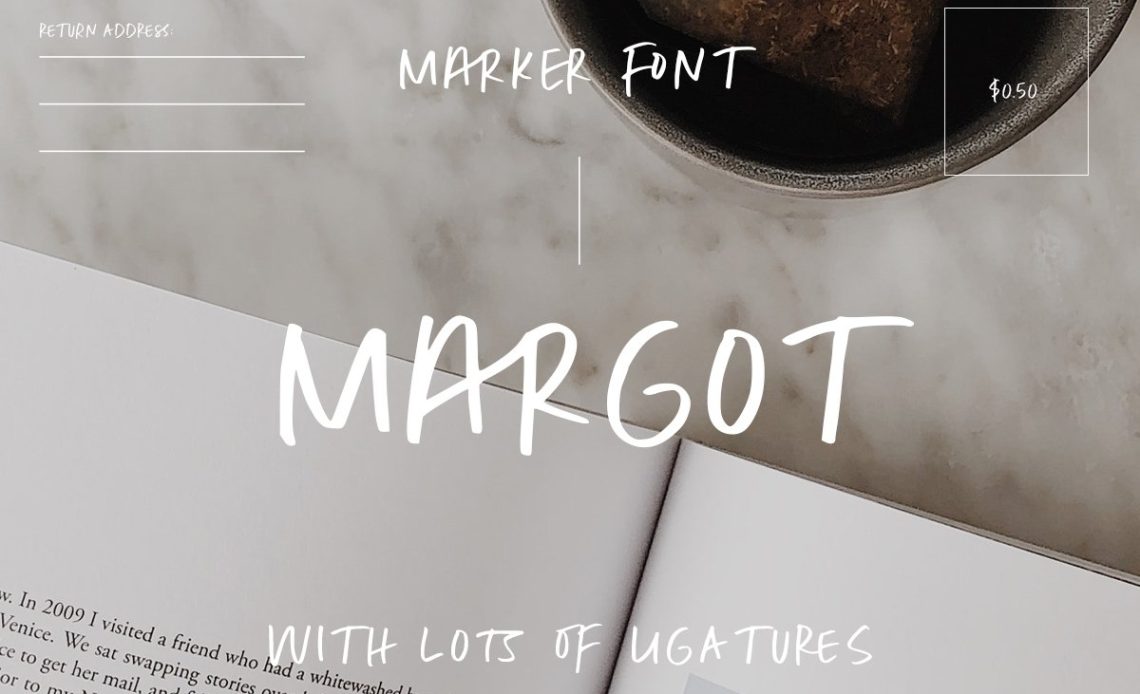
Looking for the perfect script font to add a touch of personal flair to your creative projects? Look no further than Margot Marker Font, the best font for script available on the market today.
Created by renowned calligrapher Margot Groner, Margot Marker Font is a beautiful and versatile script font that's perfect for a wide range of creative applications. Featuring all caps with three variations of each letter, plus lots of ligatures for a natural, imperfect look, this font is perfect for everything from hand-lettered social media quotes to bold and eye-catching ad campaigns.
But what really sets Margot Marker Font apart is its incredible versatility. Available in English, Spanish, French, and German, this font is perfect for designers and creators working in a wide range of languages and regions. And with support for numbers and punctuation, you can use Margot Marker Font to create beautiful, personalized designs that truly stand out from the crowd.